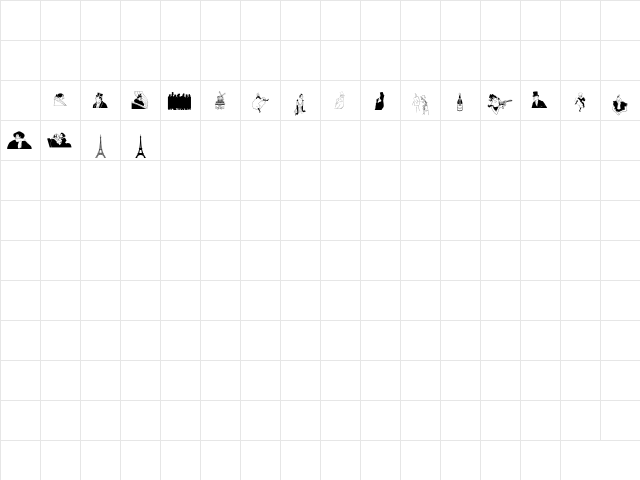
TLToulouseLautrecOrnaments Regular
Design Context for TLToulouseLautrecOrnaments Typeface
TLToulouseLautrecOrnaments brings ornamental detail and strong personality to headlines and identities, where visual impact matters more than quiet functionality.
Font Pairing: Pair with a clean neutral sans-serif for body copy to let TLToulouseLautrecOrnaments's character lead without overwhelming the composition.
Pro Tip: Treat TLToulouseLautrecOrnaments as the centrepiece of your typographic hierarchy. One strong heading set in a decorative face can carry an entire layout.